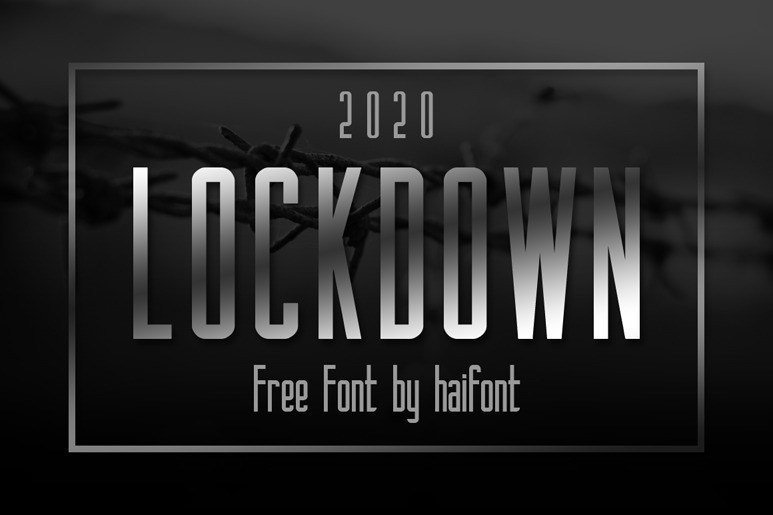
Lockdown Sans Serif Font
Lockdown Font is a sans serif display font, extra-condensed, with a unicase style. It’s geometric and very modular which gives it a sense of standardization and a rational feeling. Nevertheless, its forms have a retro construction, which brings a “modern-vintage” aspect.
It is best suited for titles and short texts. Good for labels, packaging, signage, logos, t-shirts, caps and the like. This font is free for PERSONAL USE.